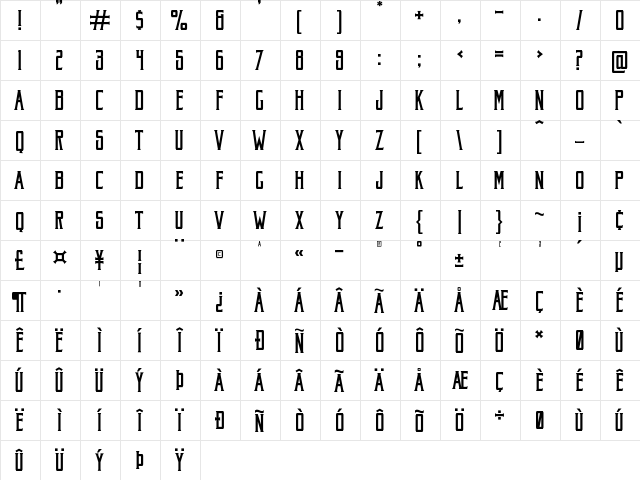
Akura Popo Regular
| Foundry | Twicolabs Typefoundry |
| Designer | Twicolabs Typefoundry |
Design Context for Akura Popo Typeface
Akura Popo offers clean, dependable letterforms without strong stylistic allegiance, making it a practical choice for designers who need flexibility.